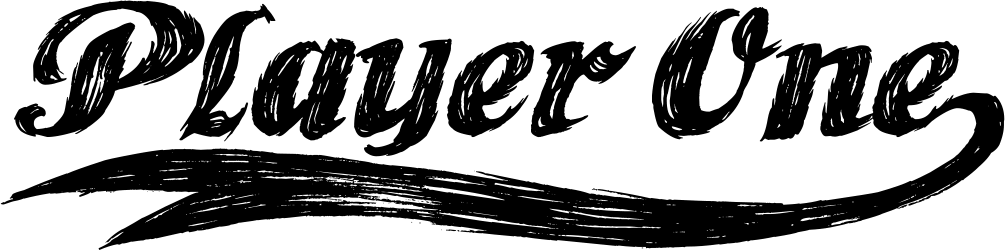
Player One Font
If you want to personalize your website content, logos, and banner ads, in addition to conveying a sense of innovation and freshness to your audience, Player One may be ideal for you. While some of the letters in this script font may be a little difficult for people to read, its old-school style will make your content more attractive.